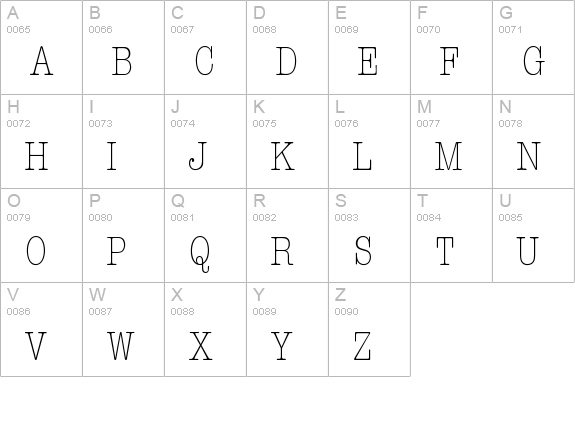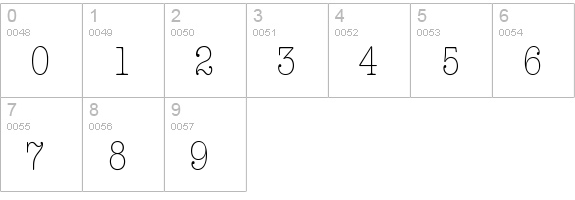
American Typewriter* Light Condensed Font Details
American Typewriter* Light Condensed is a refined, elegant, condensed-width variant in the American typeface family \xE2\x80\x94 well suited to elegant body text, refined sub-headings, and luxury branding.
The American Typewriter Light Condensed font exudes a sense of classic elegance with its clean lines and compact design. Perfect for conveying a sense of efficiency and professionalism, this font is ideal for a wide range of design projects. Its lighter weight adds a touch of sophistication while maintaining readability. What makes this font even more appealing is that it is available for free download at FontsMarket.com. Now you can easily access this versatile typeface and elevate your designs with its timeless appeal. Whether you're working on a branding project, creating a sleek presentation, or designing a modern website, the American Typewriter Light Condensed font is sure to make a statement. Download it today and add a touch of refinement to your design arsenal.